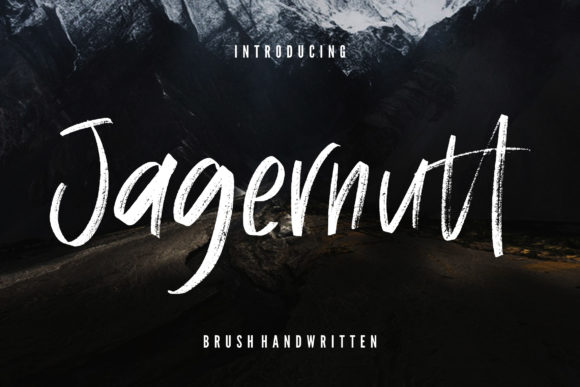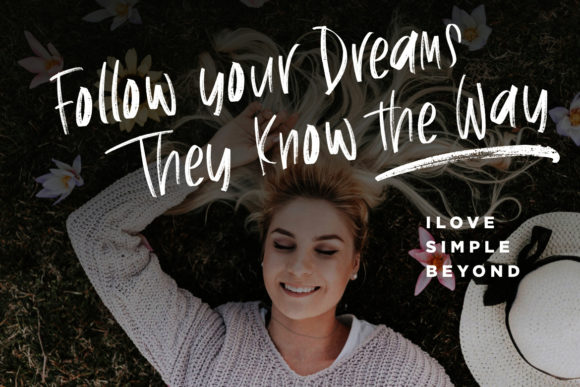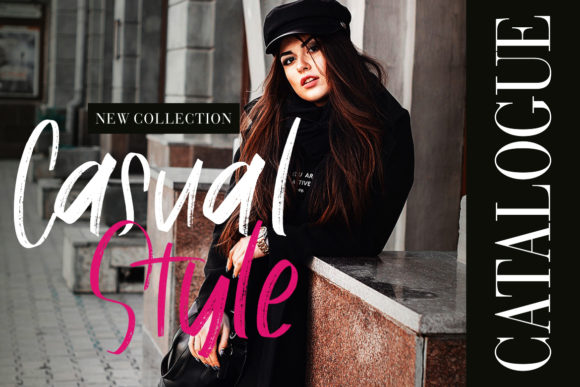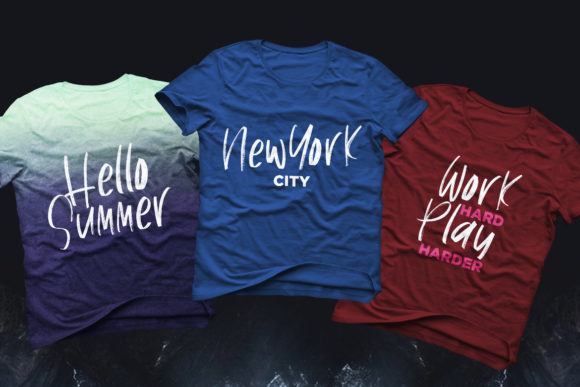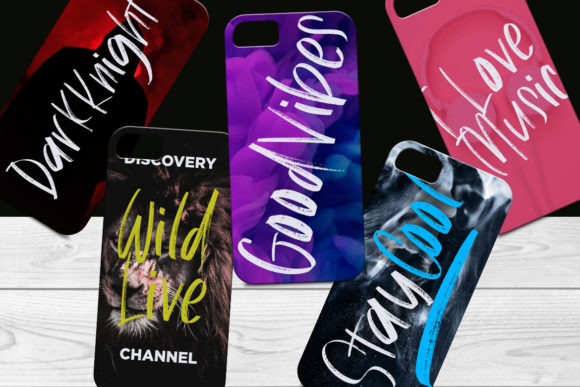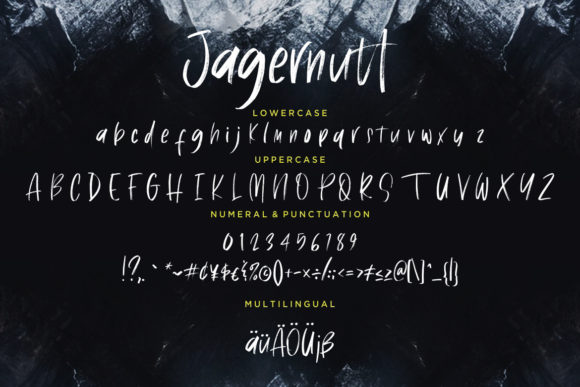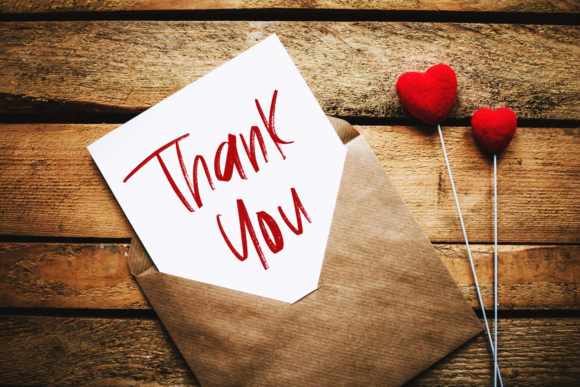
HomeScript FontsJagernutt Font Script Fonts Jagernutt Font FacebookXPinterestWhatsApp Jagernutt Font Poster 2 Jagernutt Font Poster 3 Jagernutt Font Poster 4 Jagernutt Font Poster 5 Jagernutt Font Poster 6 Jagernutt Font Poster 7 Jagernutt Font Poster 8 About Jagernutt Font Jagernutt is an authentic script with a cool vibe. Use it to add a unique spark to any design project. DOWNLOAD NOW People also explored Ayesha Font Regia Font Reysha Font Asmaralova Font Original Font Grillinea Font Christmas Arrows Font Guardilostra Font Oraret Font 268 0 TagsJagernutt Font Previous articleThe Sayinistic FontNext articleCandy Lane Font LEAVE A REPLY Cancel reply Comment: Please enter your comment! Name:* Please enter your name here Email:* You have entered an incorrect email address! Please enter your email address here Website: Save my name, email, and website in this browser for the next time I comment. Personal Use Free Gunplay Personal Use Free Read more about this font Barbatrick Personal Use Free Read more about this font Eric”s Personal Use Free Read more about this font Mahisya Personal Use Free Read more about this font BLOG 5 Fonts That Will Dominate Design Trends in 2026 5 Fonts for 2026 That Will Dominate Design Trends Typography plays a critical role in visual communication, and as we look ahead to 2026, it’s... How to Install and Use Fonts on Windows, macOS, and Web Projects Top 7 Google Fonts Alternatives for Faster and Privacy-Friendly Web Design (2025) Top 10 Handwritten Fonts That Elevate Your Designs